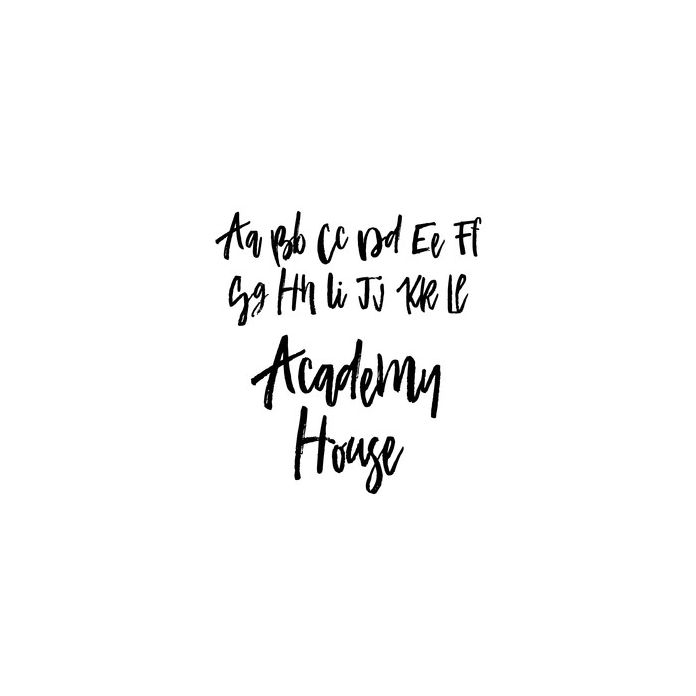
Academy House is a fun-loving brush font with a bouncy baseline. Comes with a full set of capitals, lowercase characters, numerals, punctuation, and international language support.